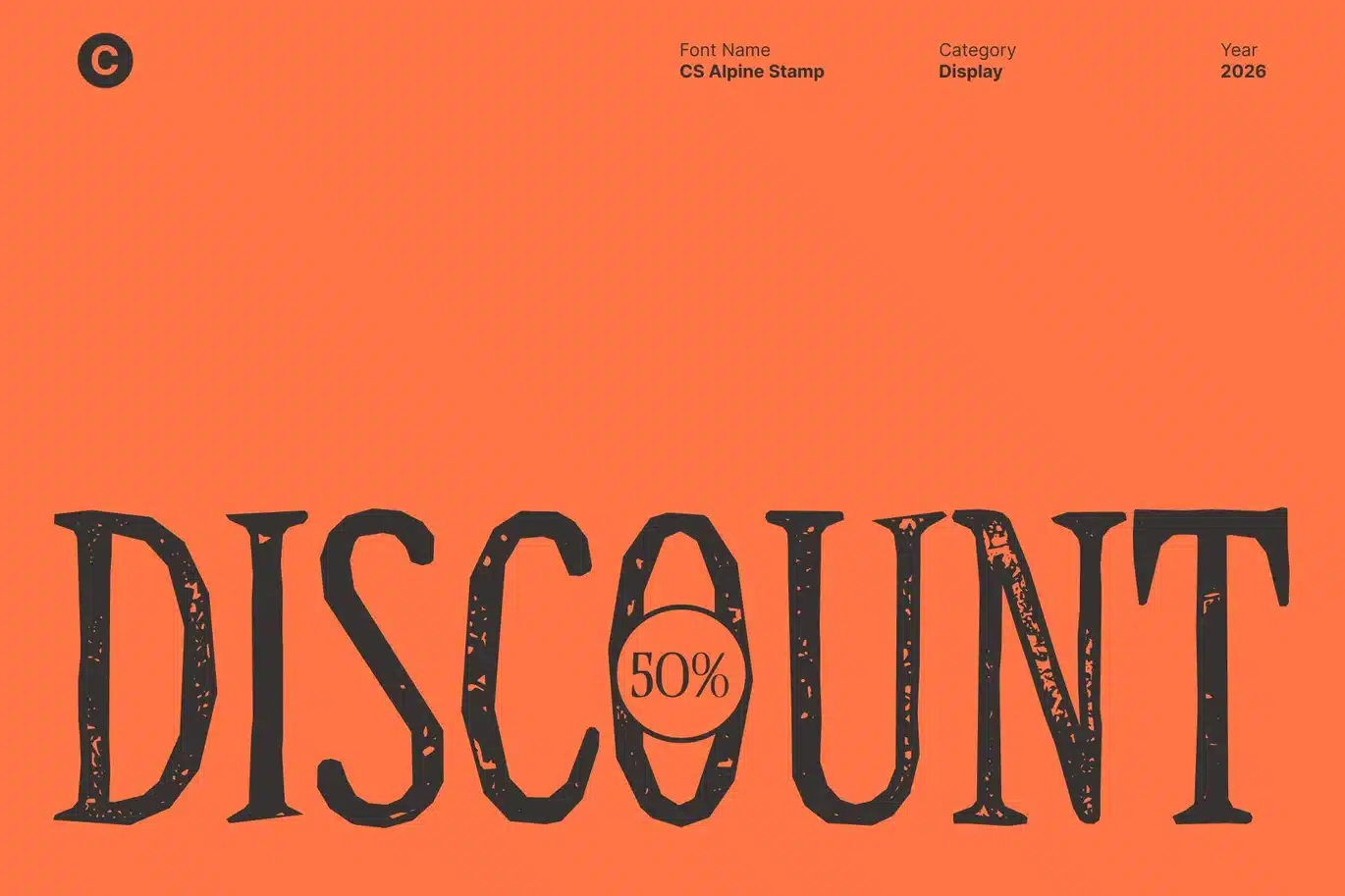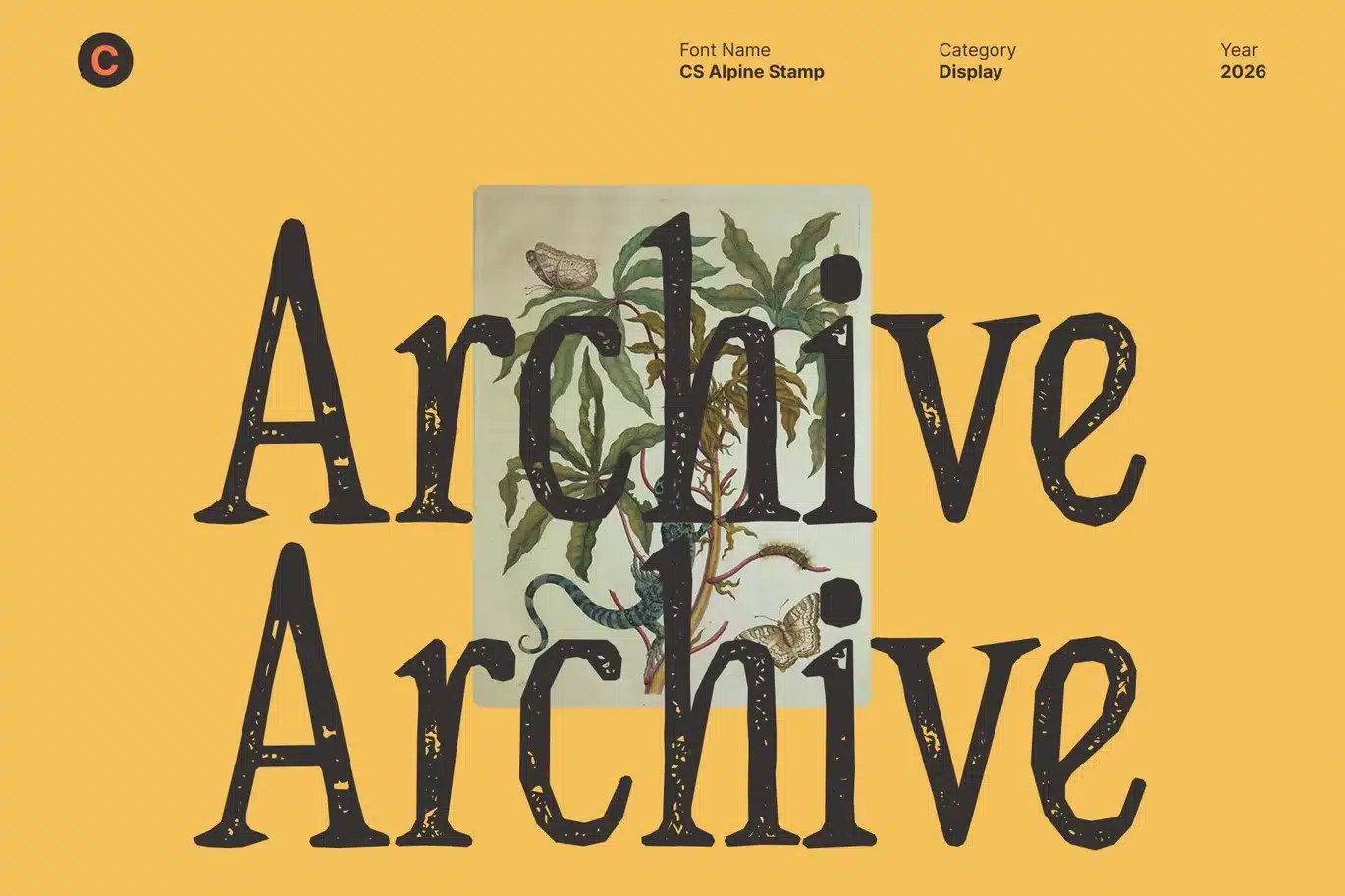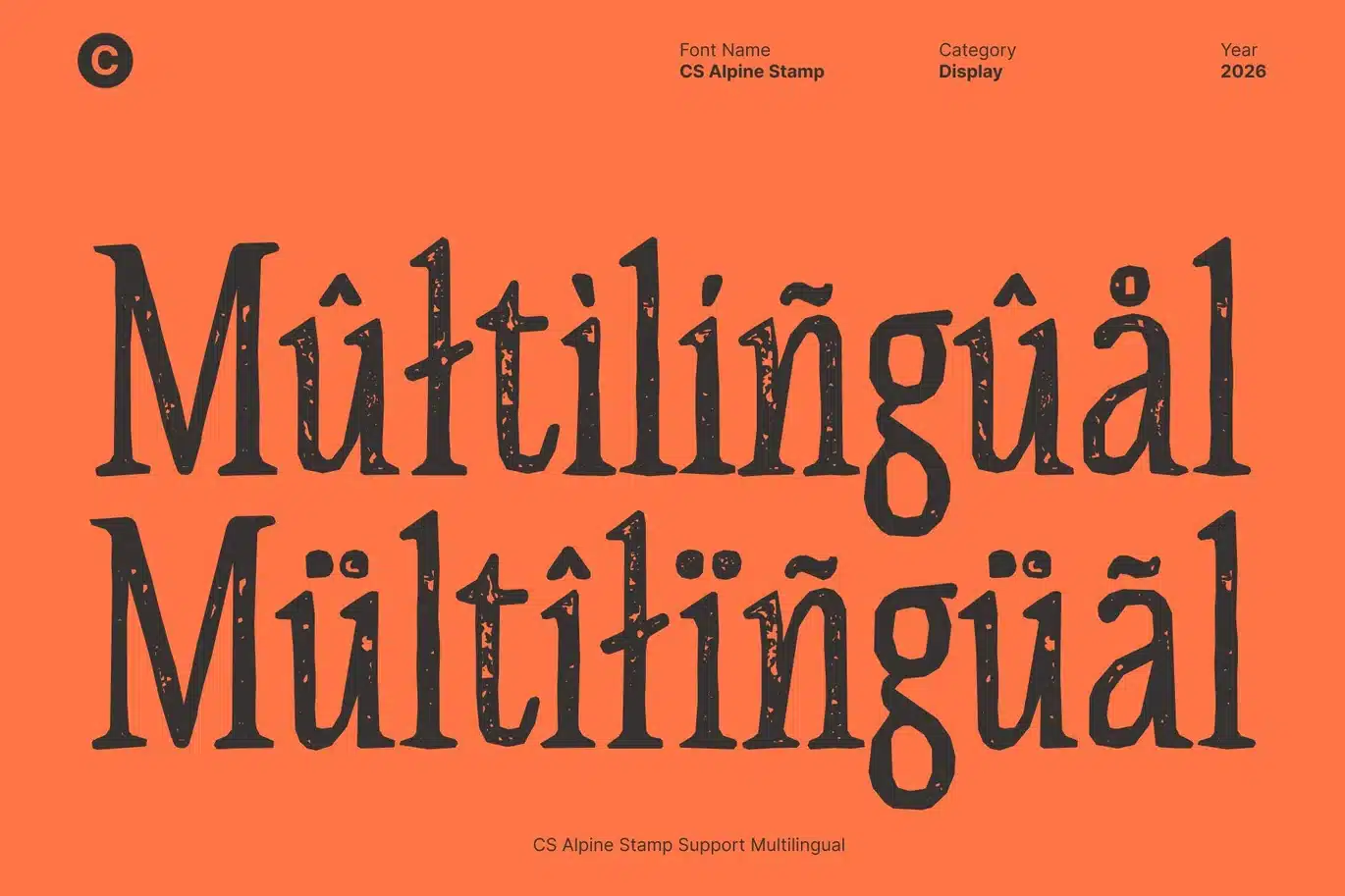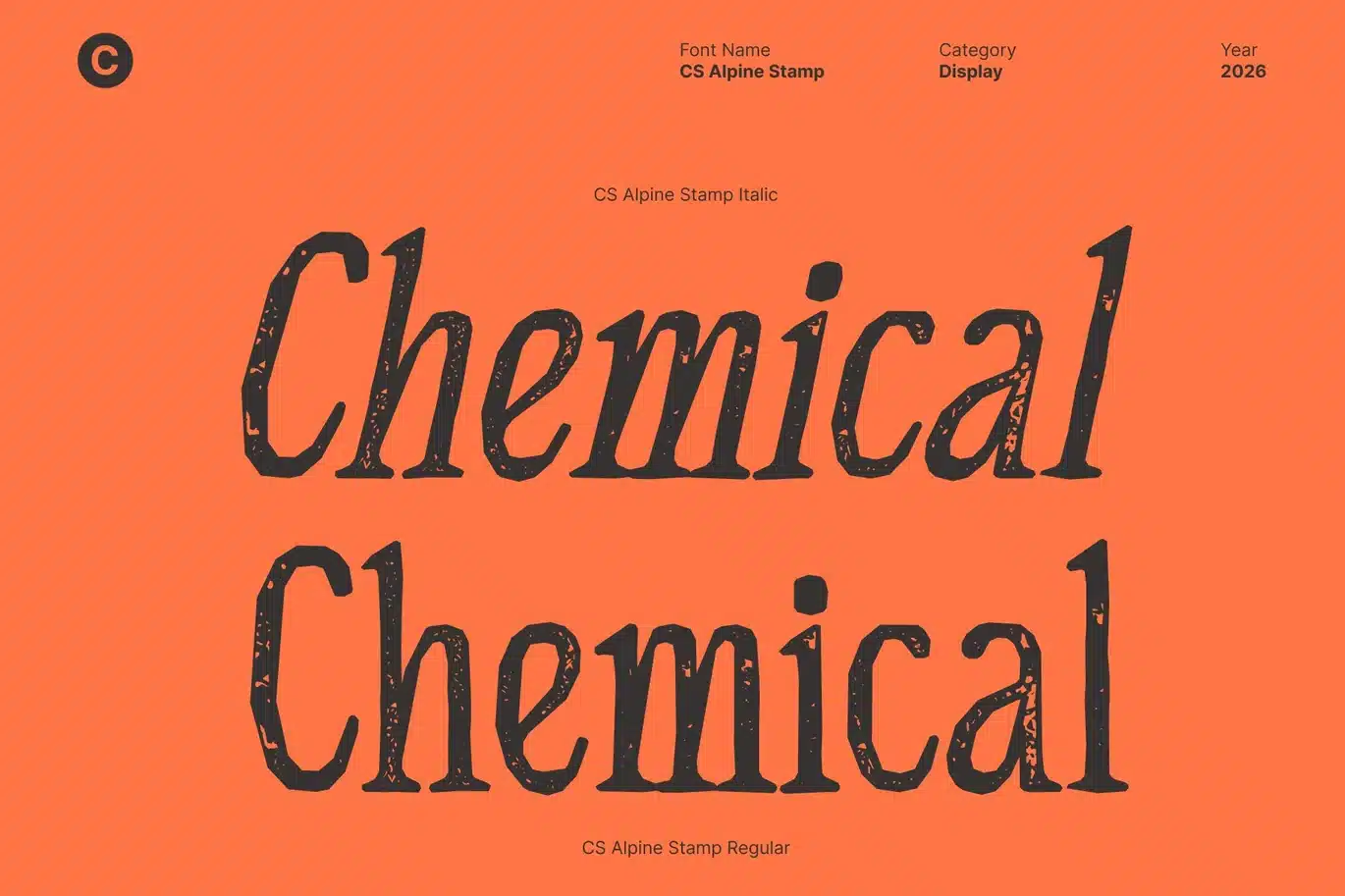
Alpine Stamp Font
CS Alpine Stamp – Contemporary Serif with Textured Modern Elegance
Modern Serif Font with Slim Serifs and Condensed Proportions
This is a refined contemporary serif font that blends modern minimalism with timeless elegance, now enriched with a distinctive stamp texture. Its slim, elongated serifs and condensed proportions create a sophisticated, structured appearance, while the stamped effect introduces subtle imperfections that add warmth, depth, and visual character.
Condensed Structure with Vintage-Inspired Texture
Designed with a narrow, vertical form, this font remains highly space-efficient without sacrificing style. The tall letterforms allow content to fit beautifully into compact layouts, while the textured stamp finish gives the font a slightly aged, tactile feel. This combination results in a perfect balance between modern precision and classic, print-inspired charm.
Minimalist Professionalism with an Organic Touch
The clean, minimalist foundation of this font is softened by its stamped surface, transforming sharp elegance into something more expressive and human. The texture adds an artisanal quality that evokes traditional printing techniques, making the font feel more authentic, grounded, and visually engaging while still maintaining a polished, professional tone.
Perfect for Premium Branding and Editorial Design
This is ideal for corporate identities, luxury branding, editorial headlines, fashion labels, and upscale packaging that seek sophistication with character. It delivers a contemporary voice enriched with subtle vintage nuance perfect for designs that value clarity, elegance, and textured authenticity in equal measure.